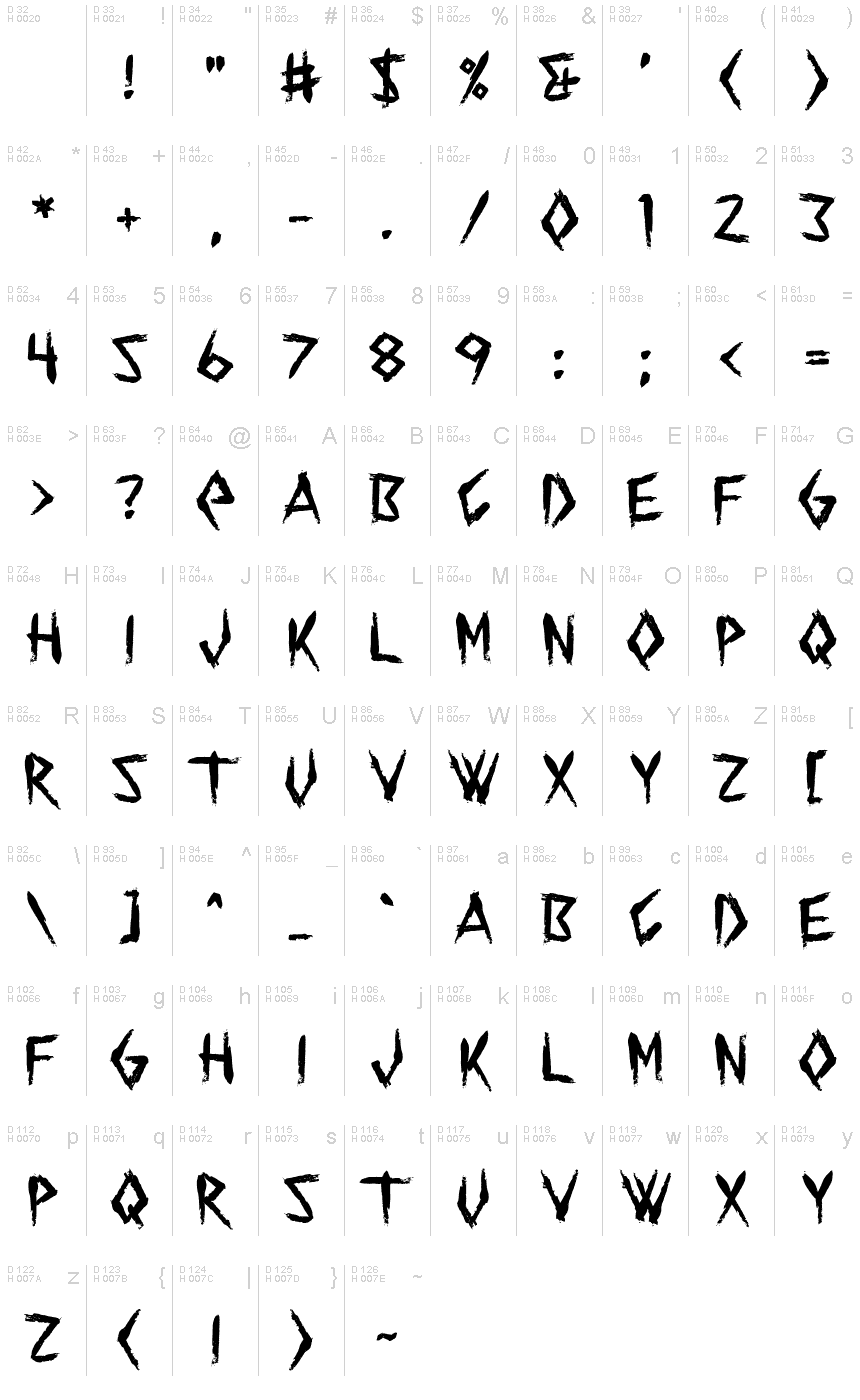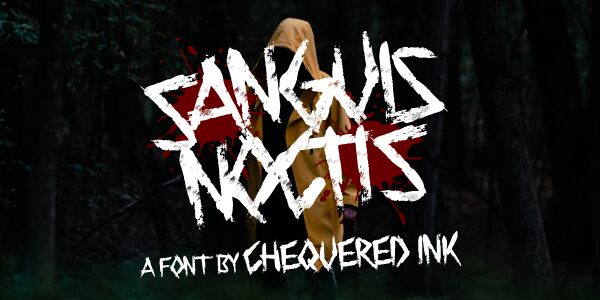
Sanguis Noctis
Introducing Sanguis Noctis, the bone-chilling display font designed by Allison J James. With its sharp, jagged edges and ominous curves, this font is perfect for horror movie titles, haunted house promotions, and Halloween-themed branding. Its unique style will send shivers down your spine and captivate your audience with its eerie allure. Suitable for posters, book covers, video game titles, and anything else that requires a touch of terror. Get ready to unleash a world of fear with Sanguis Noctis!